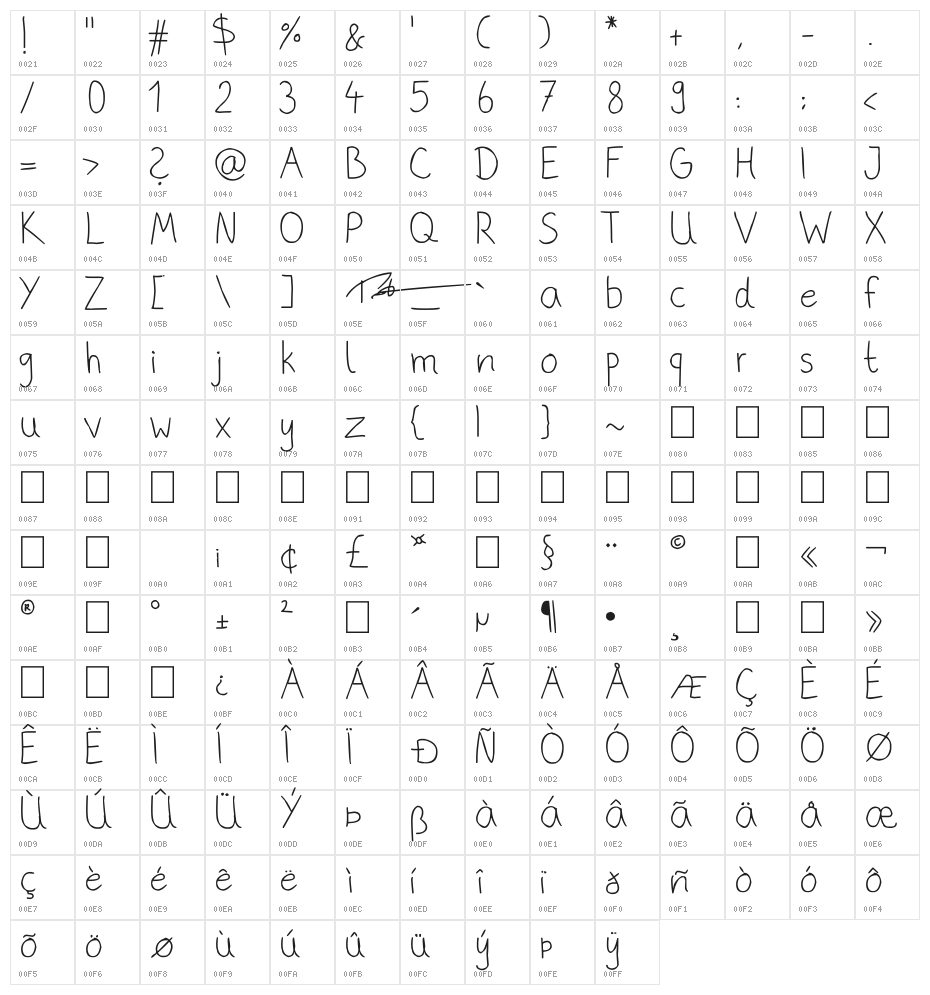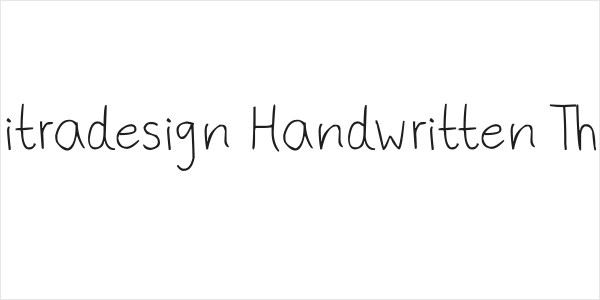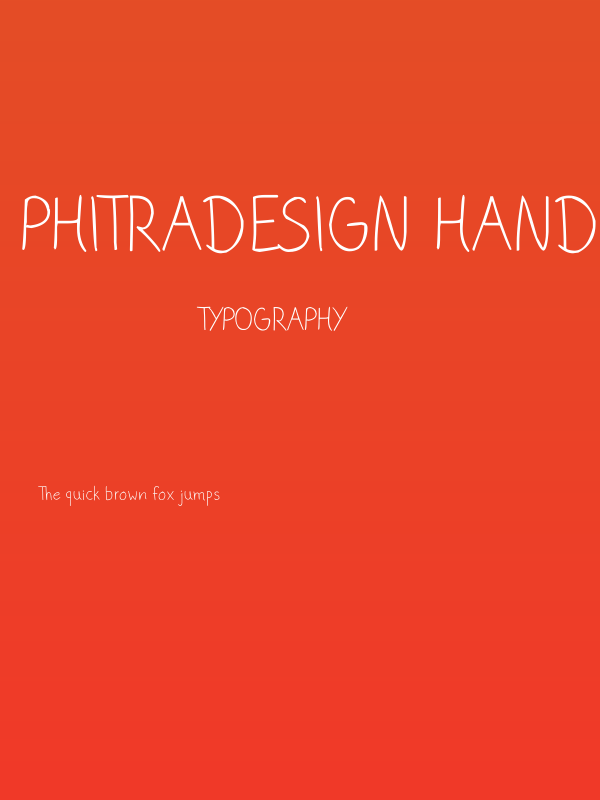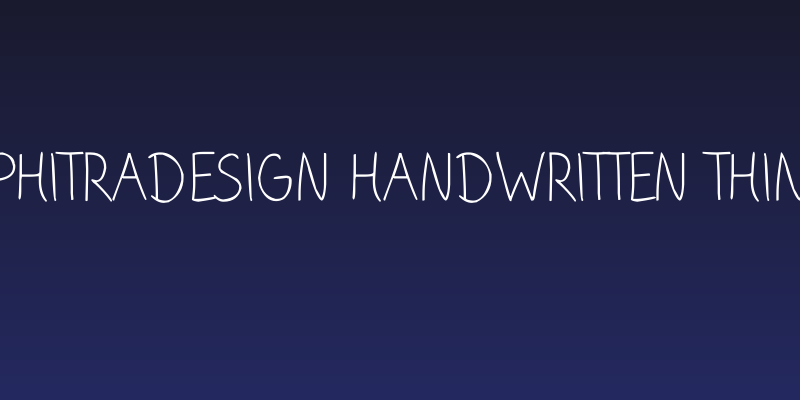
phitradesign Handwritten Thin Font
phitradesign Handwritten Thin Description
This font features a playful and casual handwritten style, characterized by its thin, slightly uneven strokes that give it a personal and informal touch. The letters are tall and narrow, with a consistent height across both uppercase and lowercase characters. The font maintains a clean and legible appearance, making it suitable for conveying a friendly and approachable tone. The numerals and special characters are designed to match the overall style, ensuring a cohesive look throughout. Its simplicity and charm make it versatile for various design projects.
| Use Case | Greeting cards, Personal notes, Informal branding |
| Proposed Projects | Ideal for greeting cards, personal notes, children's books, and informal branding. |